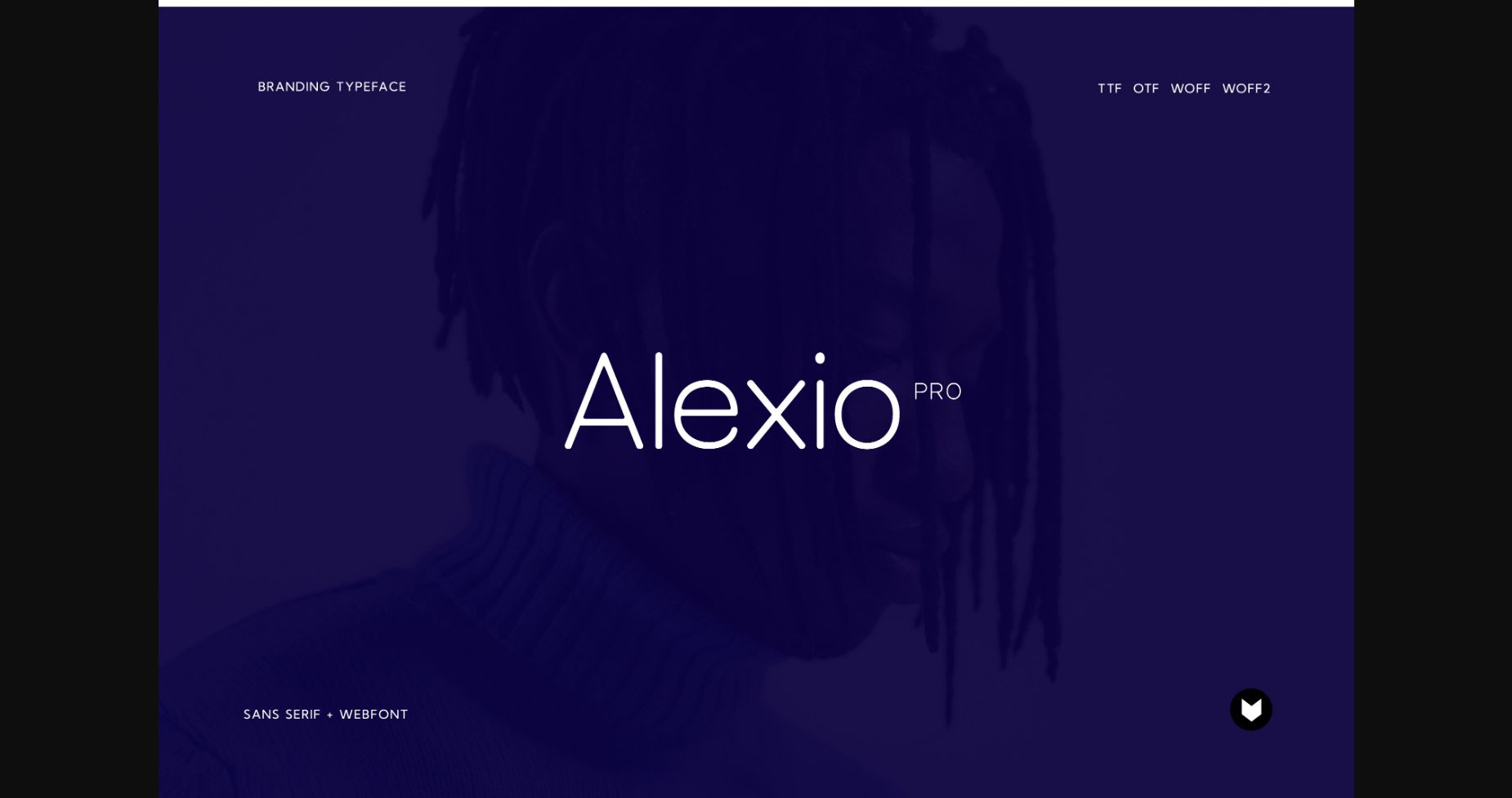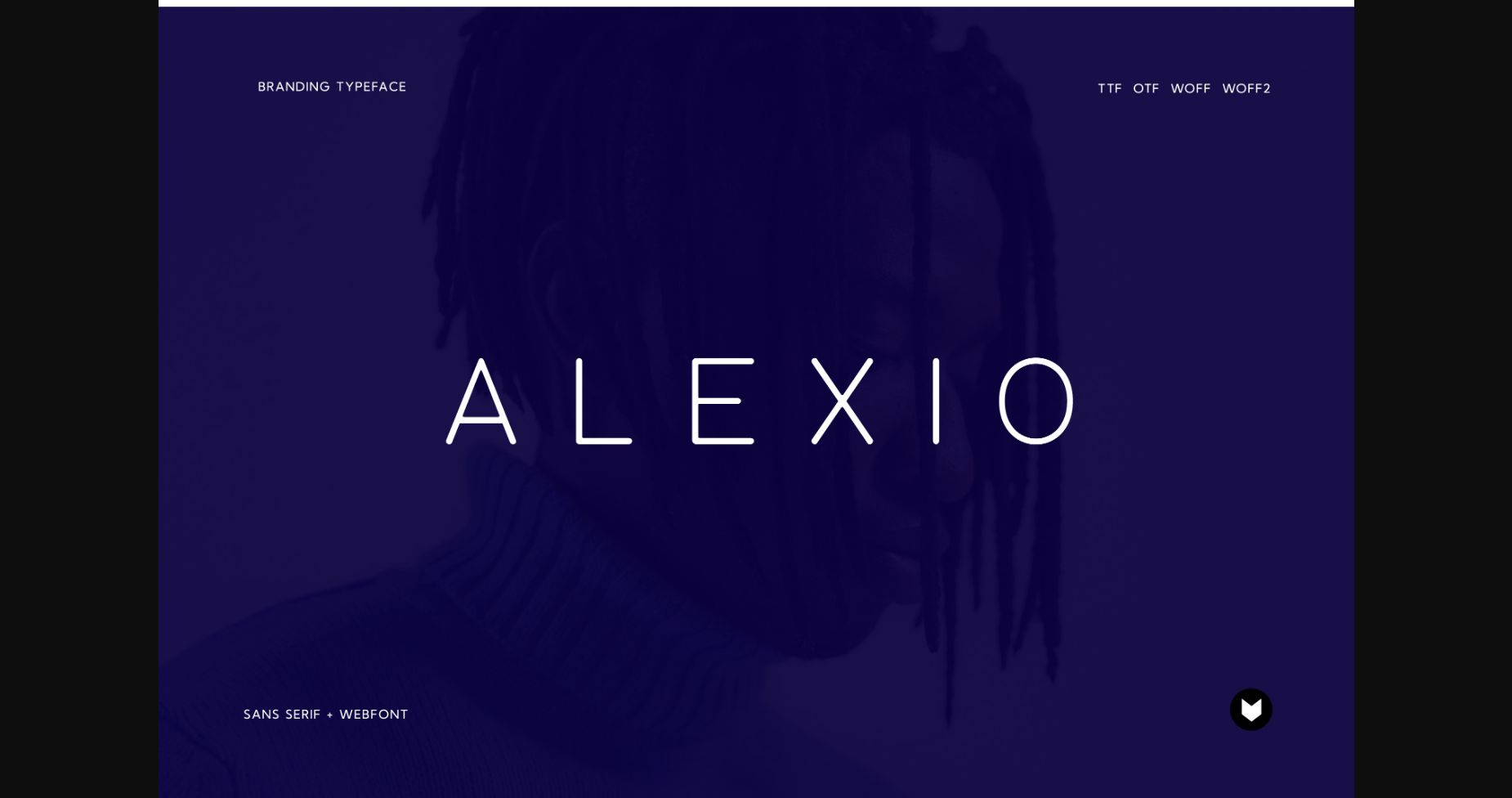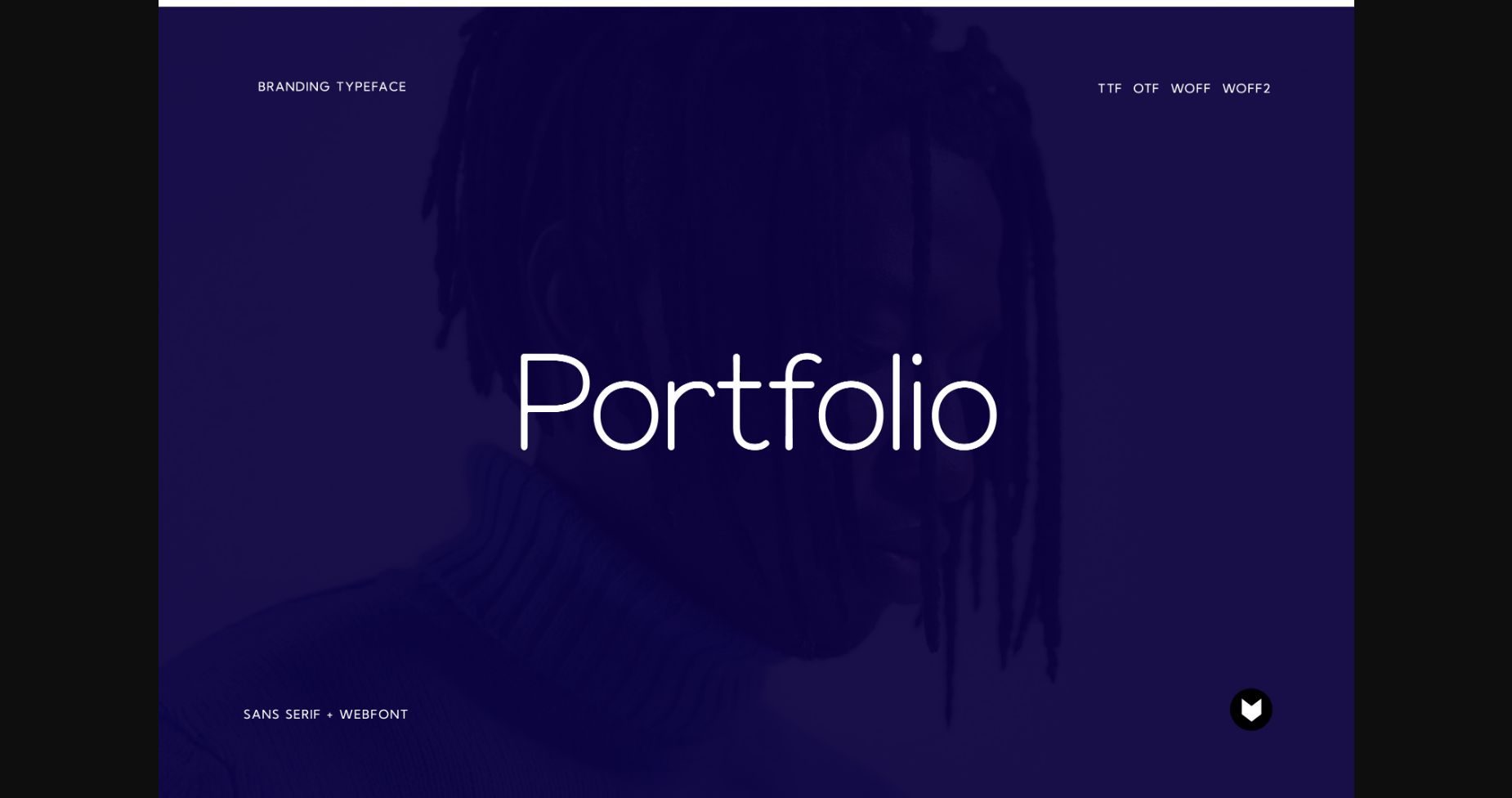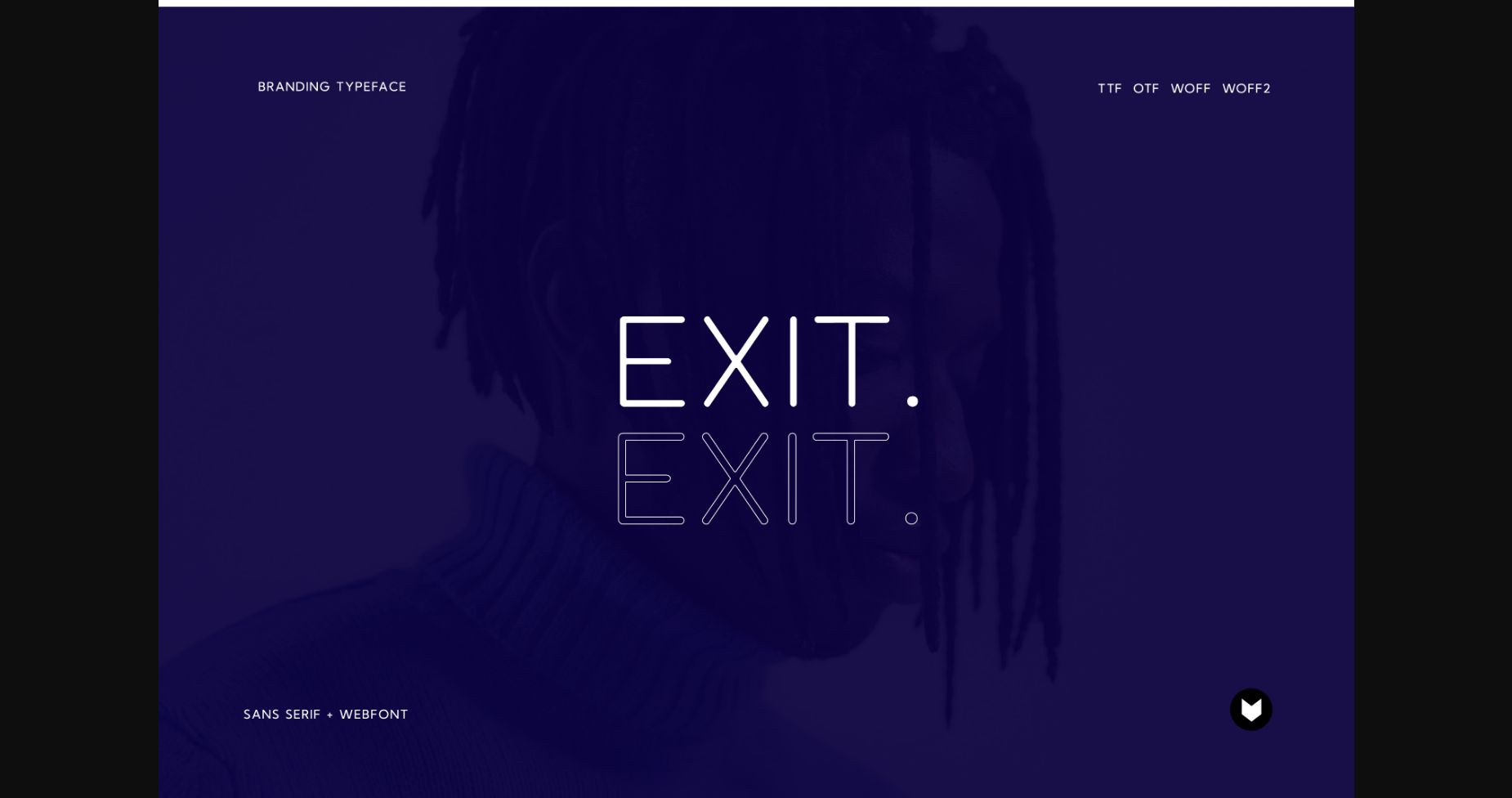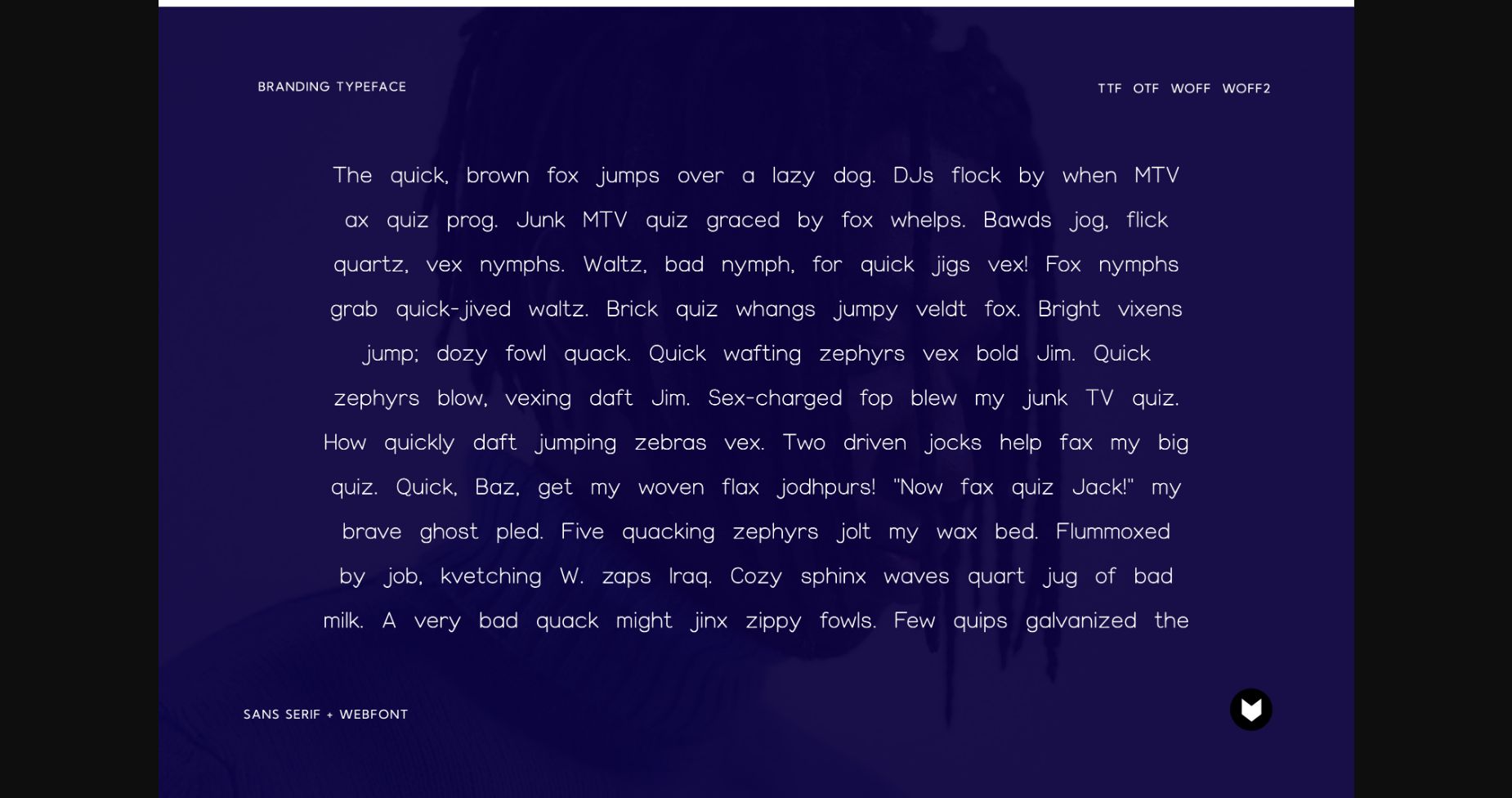
Alexio is a minimal and neat sans serif font. It can easily be matched to an incredibly large set of projects, so add it to your creative ideas and notice how it makes them stand out!